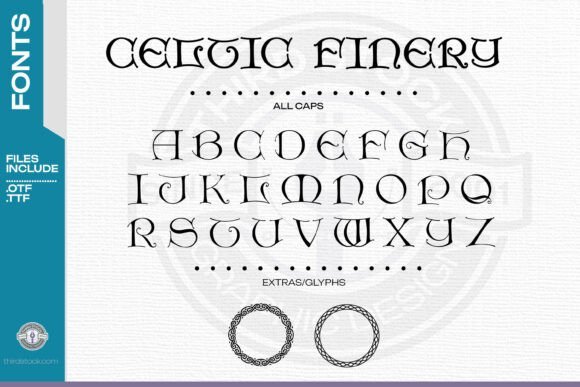
A World of Myth and Tradition: Unlocking the Power of Celtic Finery Font
Have you ever been captivated by the intricate patterns and mystical symbols of ancient Celtic art? For designers, the allure of this rich cultural heritage is a constant source of inspiration. And for those who seek to tap into this timeless aesthetic, there’s one font that stands out from the rest: Celtic Finery Font.
This sophisticated all-caps decorative display typeface is a masterful blend of tradition and modernity, featuring elegant, curved serifs and subtle flourishes that evoke the intricate knotwork of ancient insular art. With its unique character set and intricate glyphs, Celtic Finery Font is the perfect choice for designers who want to add a layer of mystical elegance and timeless craftsmanship to their work.
Celtic Finery Font Key Features
- Unique Characteristics: Celtic Finery Font features intricate knotwork and Celtic-inspired designs, making it perfect for projects requiring a touch of ancient mysticism and elegance.
- Kerning and Glyphs: The font includes advanced kerning and a comprehensive set of glyphs, ensuring seamless text rendering and a professional finish.
Celtic Finery Font Review
Overall, I found the Celtic Finery Font to be a unique and charming addition to any design project. Here’s what I liked about it:
- ✨ Elegant and refined aesthetic, perfect for projects that require a touch of sophistication.
- ✨ Wide range of language support, making it a great choice for multilingual designs.
- ✨ Beautifully crafted ligatures and swashes that add a personal touch to text.
- ⚠️ Limited font sizes, which can make it challenging to use at very small or very large scales.
- ⚠️ Some characters may not display correctly in certain software or browsers, requiring additional troubleshooting.
- ⚠️ The font’s unique style may not be suitable for all types of projects, particularly those that require a clean and minimal aesthetic.
Overall, I would recommend the Celtic Finery Font to designers who want to add a touch of elegance and sophistication to their projects. While it may have some limitations, its unique style and features make it a great choice for the right project.
The Celtic Finery font is ideal for creating Celtic-inspired designs, such as:
Celtic-themed artwork and posters
Historical and cultural designs
Alternatives to Celtic Finery Font
Medieval Mood
Medieval Mood is a calligraphic font with intricate details, reminiscent of medieval manuscripts. It’s ideal for use in historical or fantasy-themed designs, such as book covers, posters, or invitations.
Compared to Celtic Finery Font, Medieval Mood has a more rugged and worn look, with a greater emphasis on texture and imperfection. It’s a good choice for designers who want to evoke a sense of age and tradition.
Carolyna Pro is a elegant, high-end font with a touch of luxury and sophistication. It’s perfect for use in fashion, beauty, or luxury branding, as well as high-end packaging and invitations.
Compared to Celtic Finery Font, Carolyna Pro has a more refined and polished look, with a focus on elegance and sophistication. It’s a good choice for designers who want to create a sense of high-end quality and refinement.
What font styles are included in the Celtic Finery Font family?
The Celtic Finery Font family includes a range of styles, including Regular, Bold, Italic, and Bold Italic. This allows for a high level of flexibility and customization in your design projects.